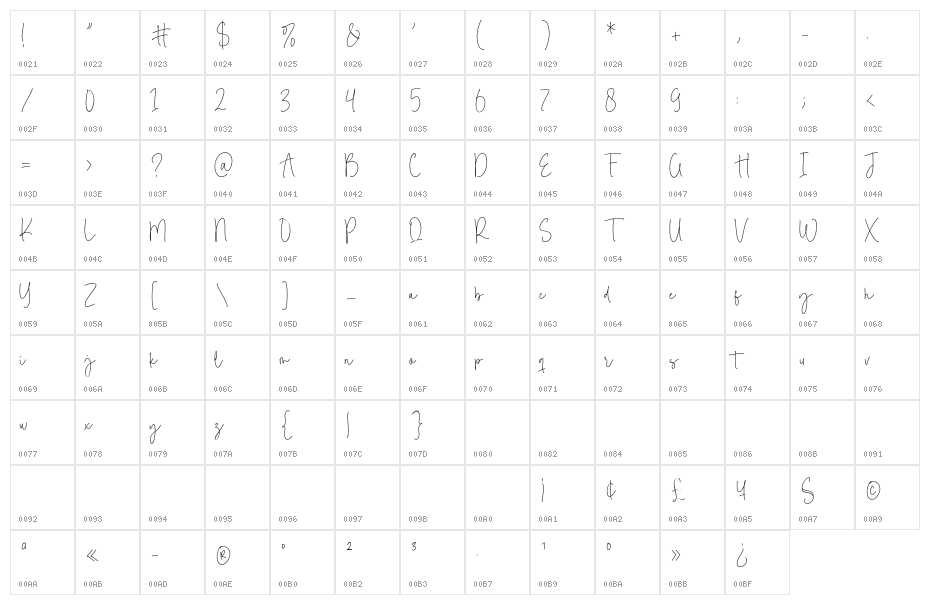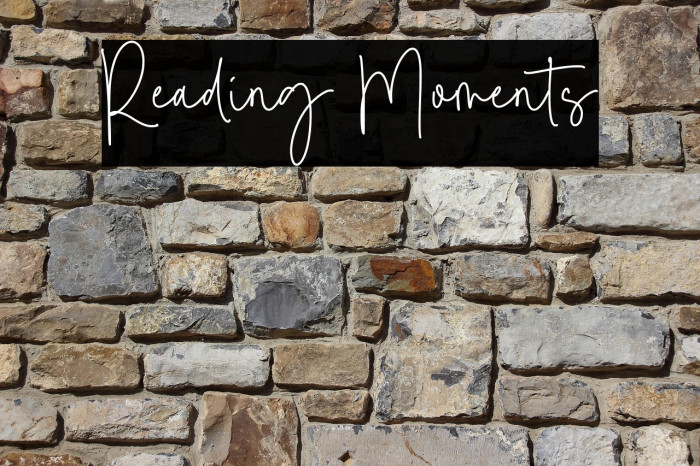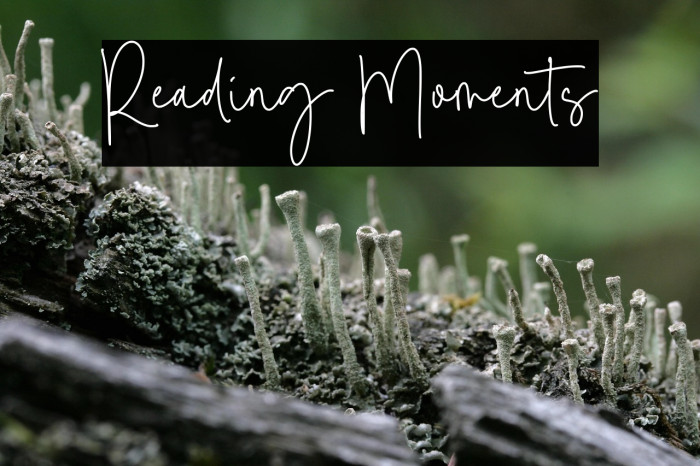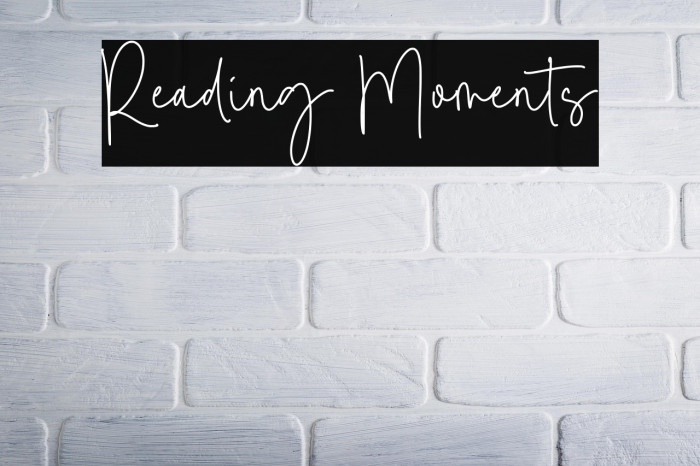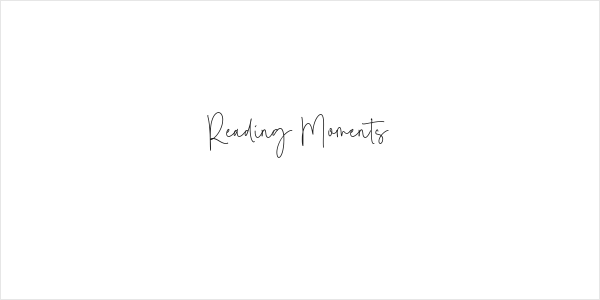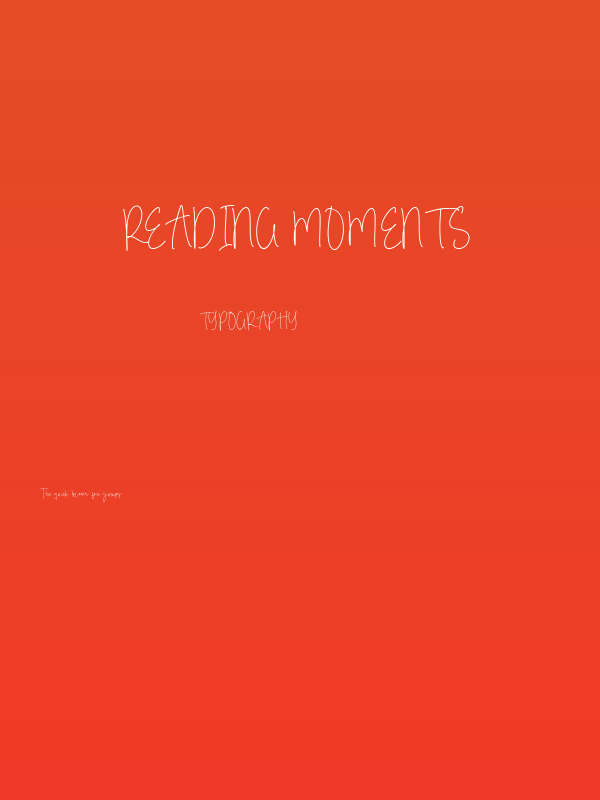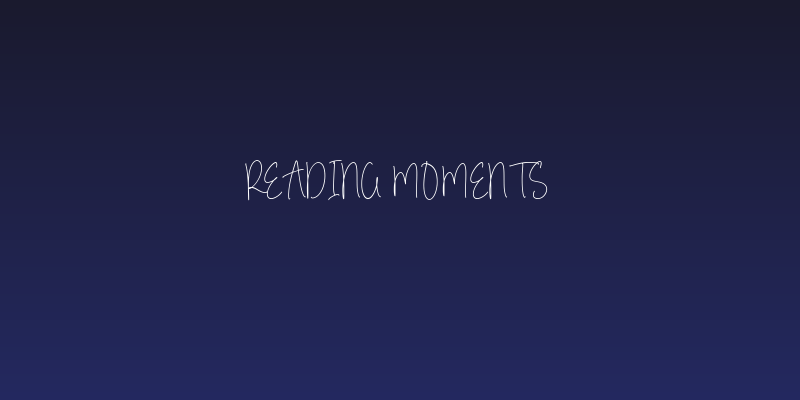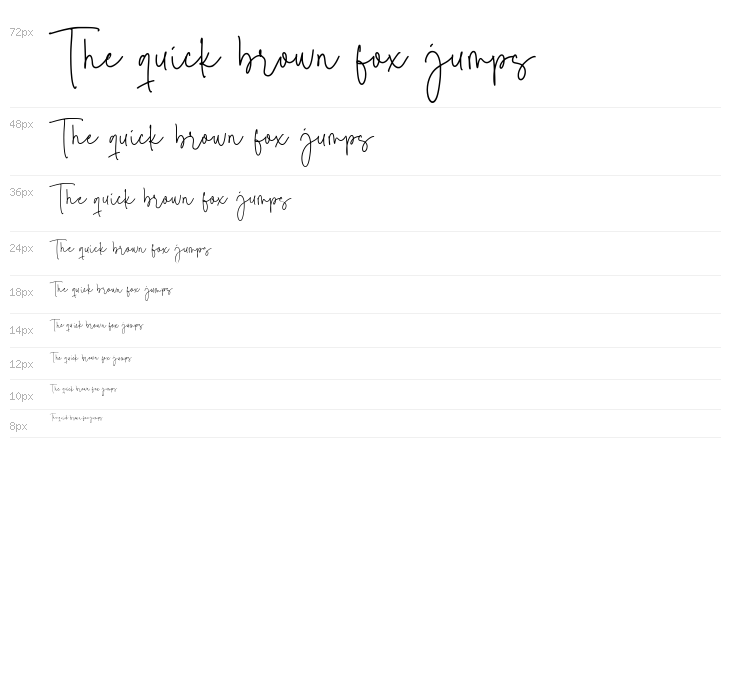
Reading Moments Font
Reading Moments Description
This font features a playful and whimsical handwritten style, characterized by its flowing, cursive-like strokes. The letters are tall and slender, with a slight slant that adds to its casual and informal appearance. The uppercase letters are distinct and bold, while the lowercase letters maintain a consistent fluidity, enhancing the font's overall charm. The numbers and special characters are crafted with the same playful touch, making them cohesive with the alphabet. This font's unique style is perfect for adding a personal touch to any design project.
Proposed ProjectsIdeal for greeting cards, invitations, personal branding, and creative projects that require a personal touch.